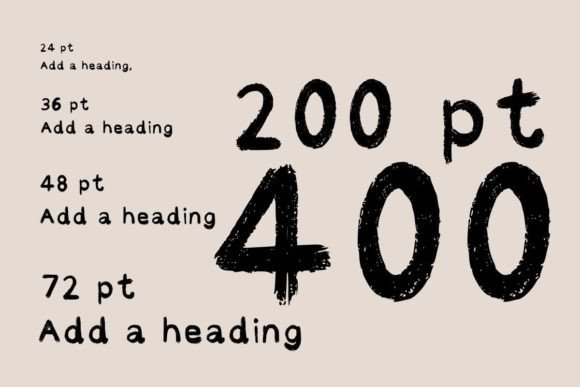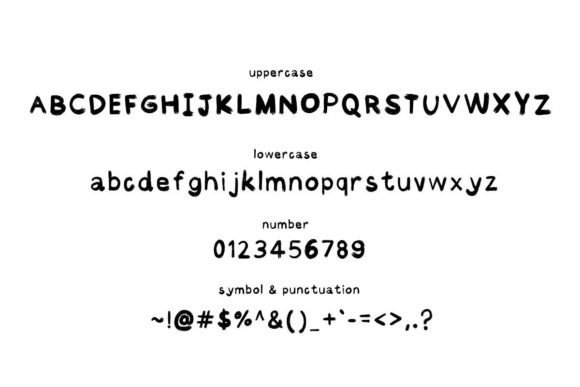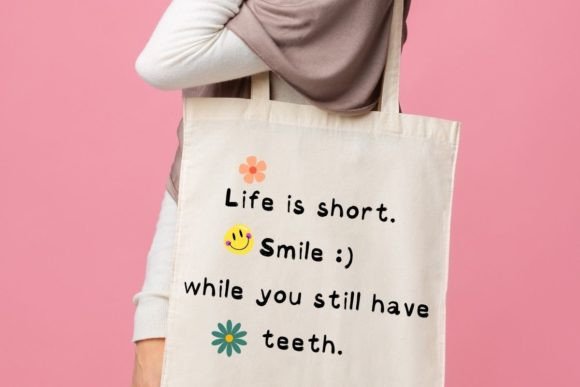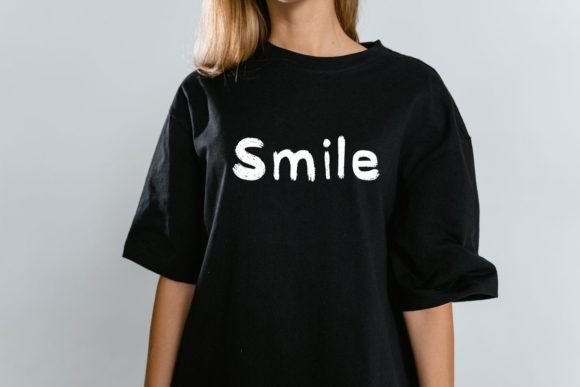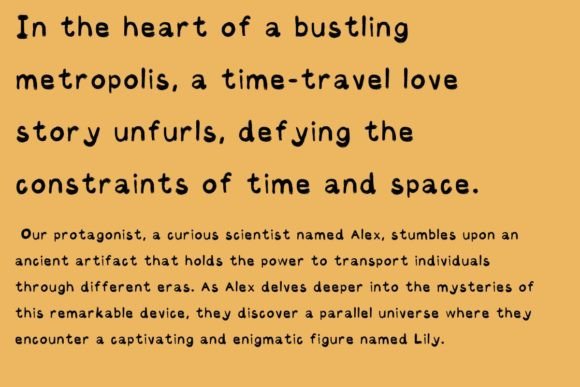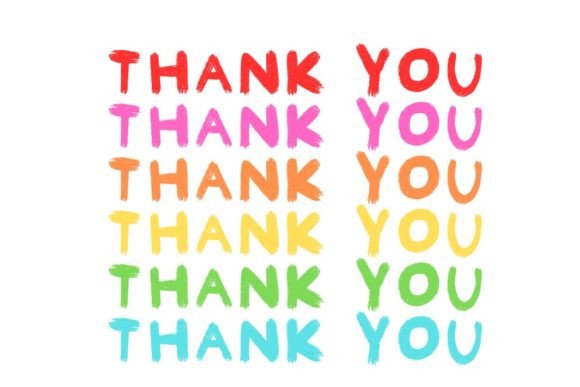
The Joy of Caton Font: Adding Whimsy to Your Designs
I still remember the time I was working on a project for a children’s birthday party, and I just couldn’t find the right font to capture the playful vibe I was going for. The client wanted something that felt handmade and fun, but everything I tried seemed too perfect, too polished. That’s when I stumbled upon Caton Font, and it was like a breath of fresh air. With its unique character shapes and rough edges, Caton added a touch of whimsy and authenticity to my design that I’d been searching for.
An Honest Review of Caton Font
- ✨ Unique and playful character shapes that add a touch of personality to any design
- ✅ Rough edges and textured feel that give designs a handmade look
- 💫 Perfect for a variety of creative projects, from greeting cards to branding materials
- 🎉 Easy to read and understand, even in smaller font sizes
While Caton Font is an amazing addition to any design project, there are a few things to keep in mind. 🤔 For example, some of the characters may not be suitable for very formal or professional designs. Additionally, ⚠️ the font may not work well with very small font sizes or in designs that require a lot of fine detail.
The Backstory of Caton Font
Caton Font was designed with the intention of creating a font that felt truly handmade and unique. The designer wanted to capture the imperfections and quirks of handwriting, while still creating a font that was easy to read and understand. The result is a font that’s perfect for adding a touch of personality and whimsy to any design.
| Font Name | Caton Font |
| Author | ByXiStudio |
Q: What is Caton Font?
A: Caton Font is a fun and textured handwritten font that’s perfect for adding a touch of personality and whimsy to any design.
Q: Is Caton Font easy to read?
A: Yes, Caton Font is easy to read and understand, even in smaller font sizes.